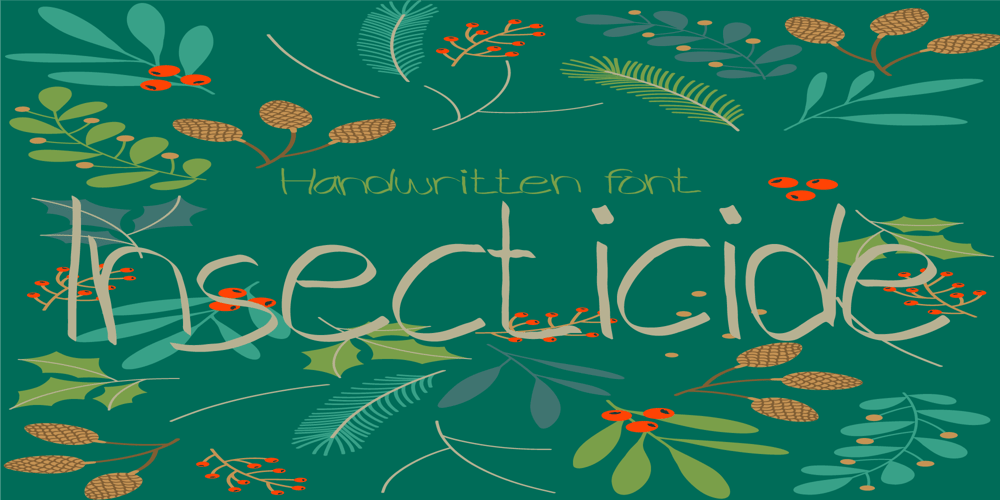
Insecticide Font Family was designed by Justin Sola and published by Arkalandara. Insecticide contains 1 styles and family package options. Insecticide Infused with a laid-back charm, our casual handwriting captures the essence of relaxed authenticity. Effortlessly stylish, each stroke exudes approachable warmth, making it the perfect choice to connect with your audience on a personal level. Embrace a brand identity that feels as comfortable as your favorite pair of jeans